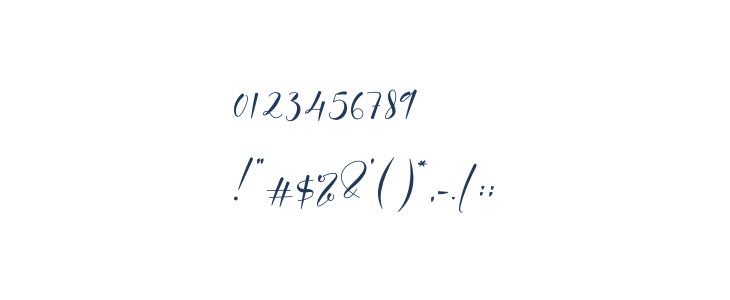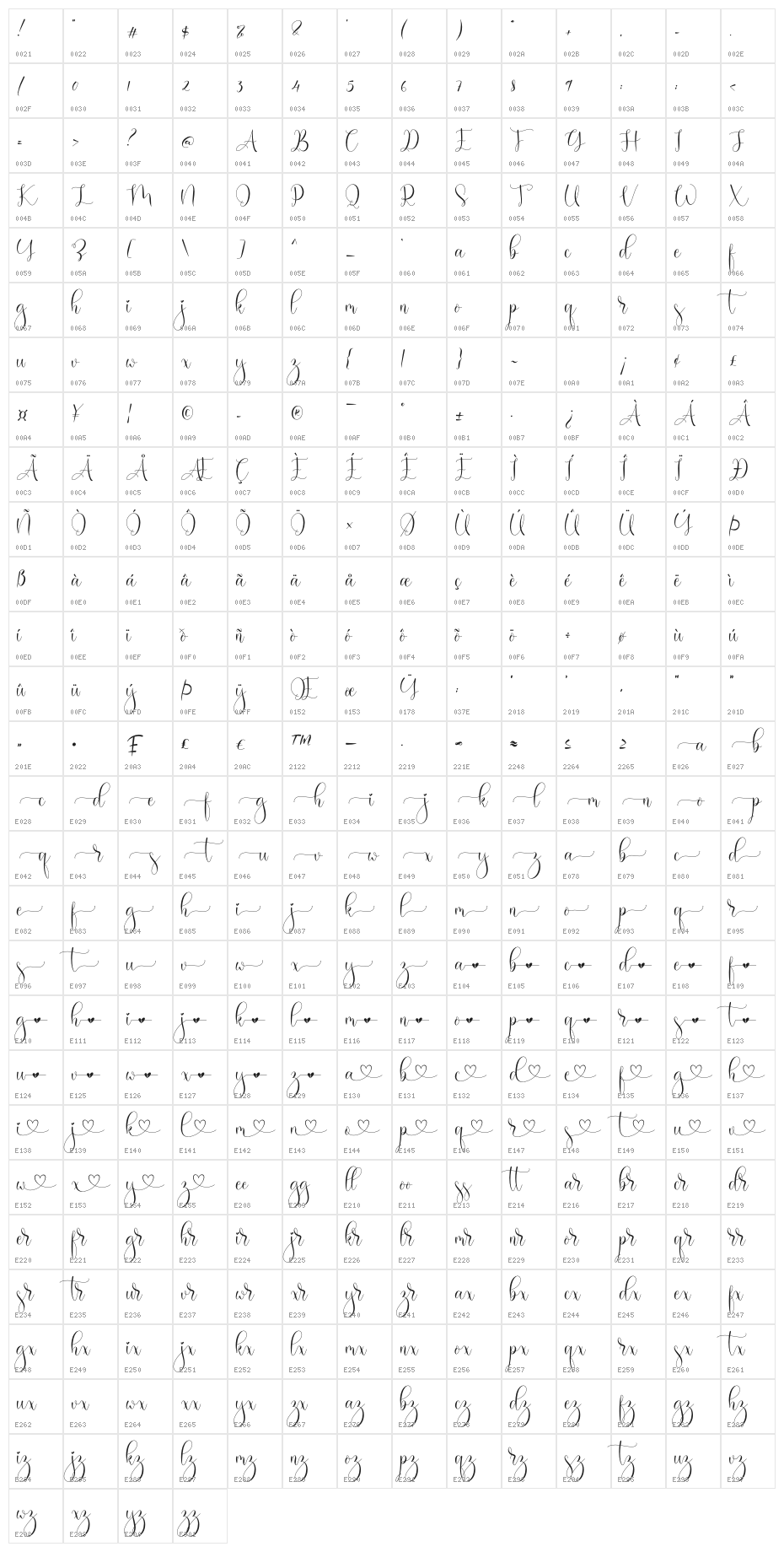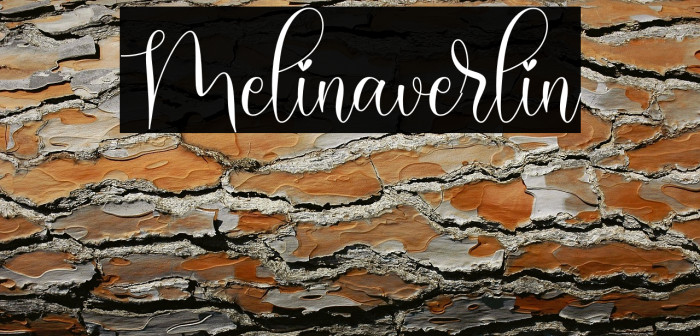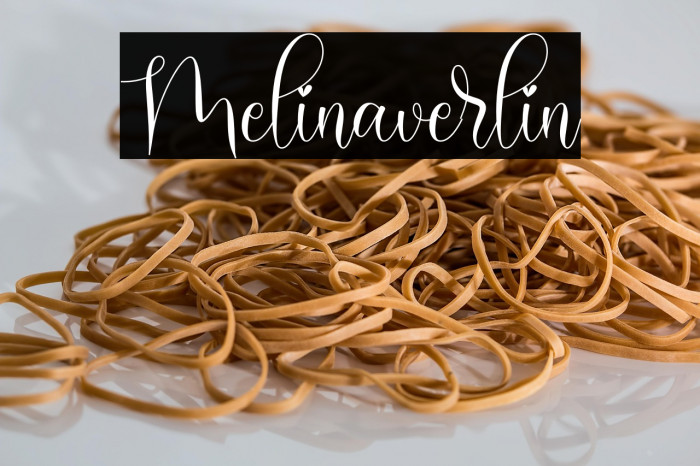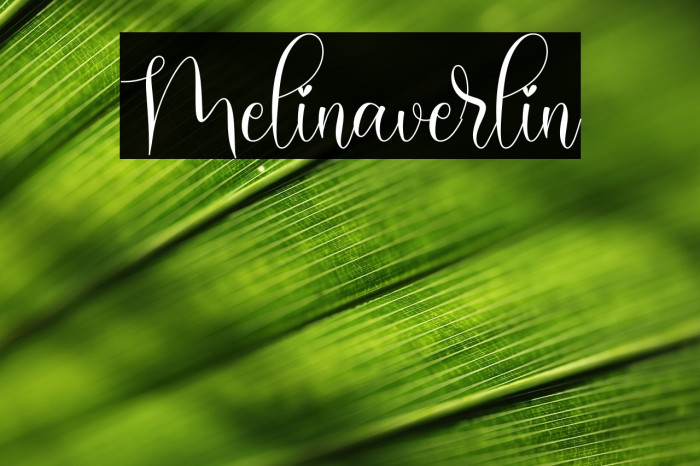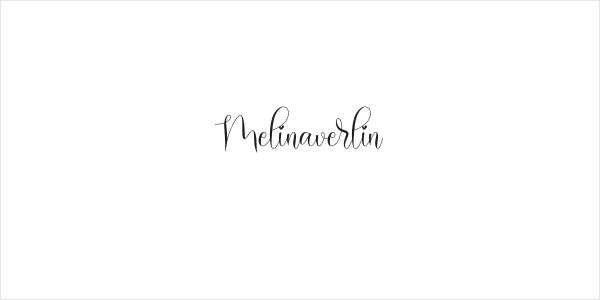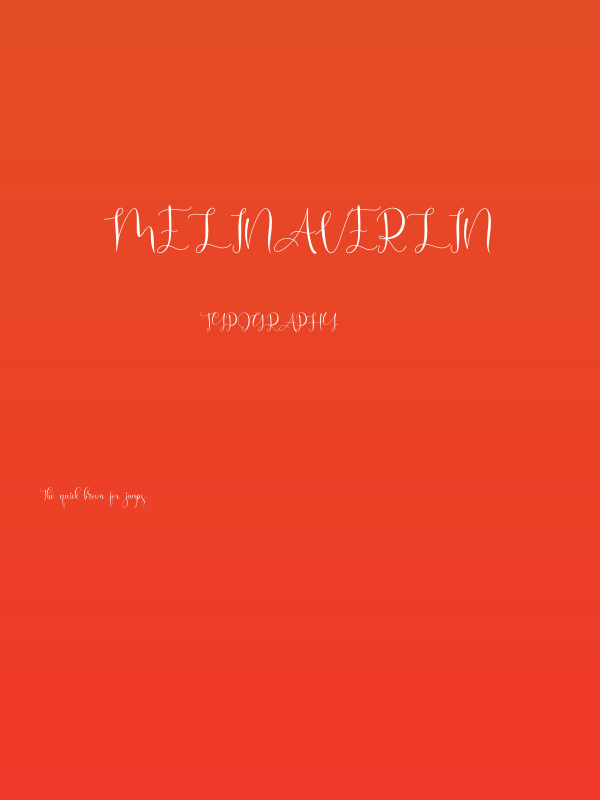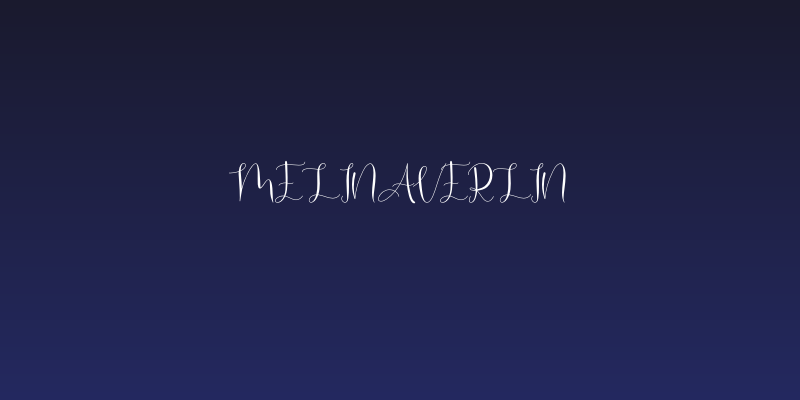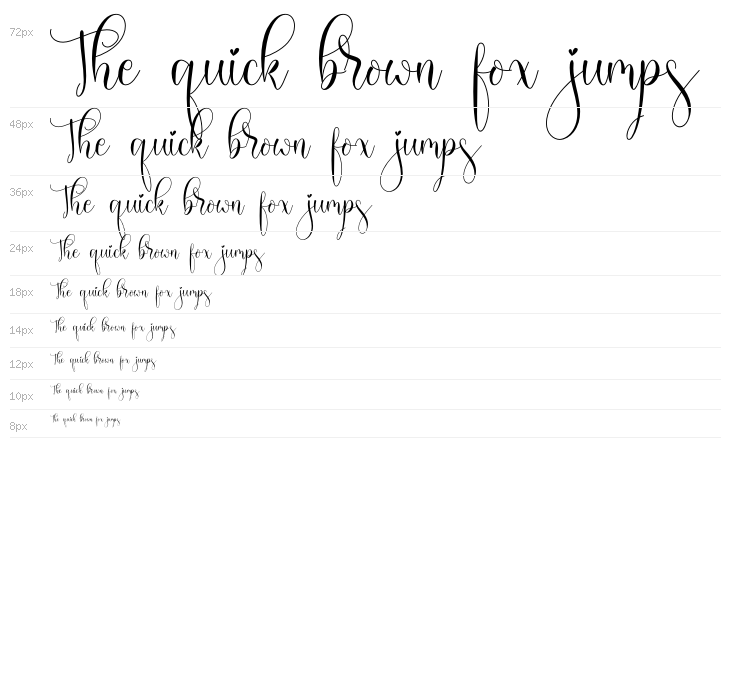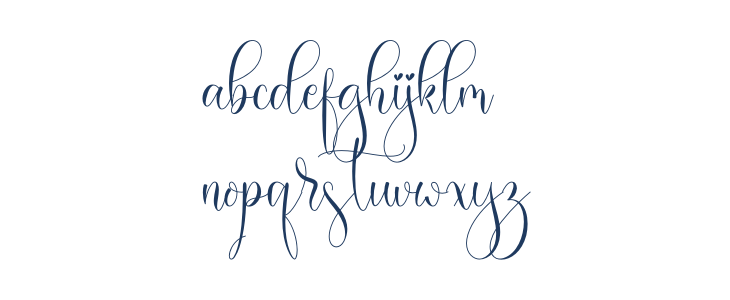
Melinaverlin Font
Melinaverlin Description
This elegant script font features flowing, interconnected letters with a calligraphic style. The uppercase characters are adorned with graceful loops and swashes, giving them a sophisticated and artistic appearance. The lowercase letters maintain a consistent flow, enhancing readability while retaining a decorative flair. Numbers and special characters are designed with the same attention to detail, ensuring a cohesive look across all elements. This font is ideal for projects that require a touch of elegance and creativity.
| Overall Style | Elegant, Artistic |
| Proposed Projects | Perfect for wedding invitations, greeting cards, branding, and elegant logo designs. |